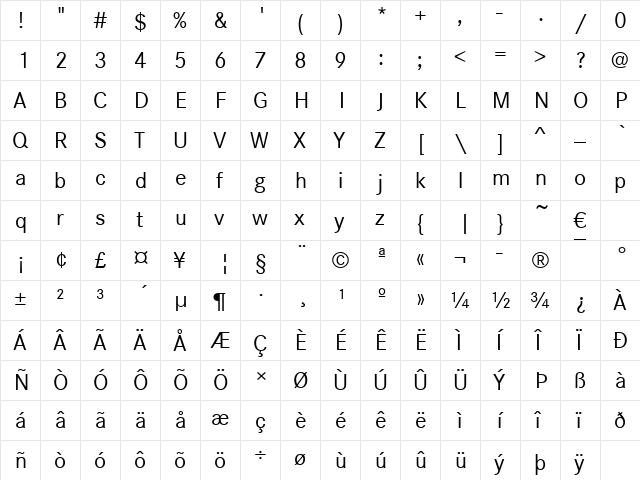
CorpoS Regular Font Preview
CorpoS Regular
CorpoS Regular Font Details
Design Context for CorpoS Typeface
CorpoS is a composed and adaptable typeface that performs quietly and consistently across a wide range of design contexts.